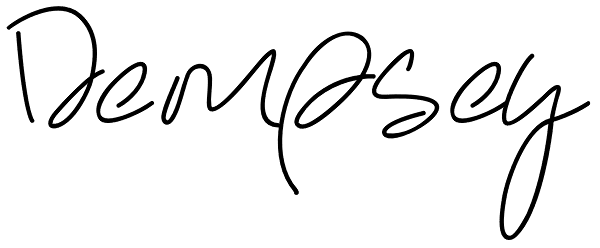
Dempsey
Creative people tend to mix printing and cursive, i.e. some letters connected, some not. Why? Who knows? Handwriting analysts have a field day with this sort of thing. Have a field day of your own with Dempsey, based on the writing of Tucson film...